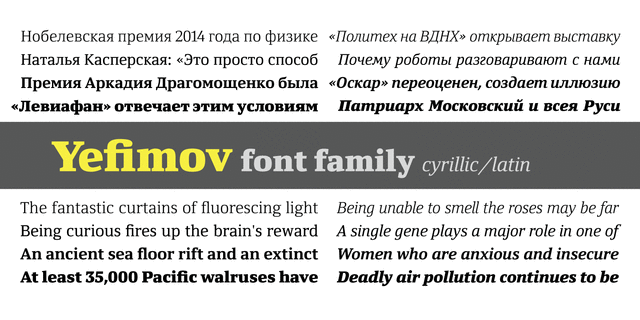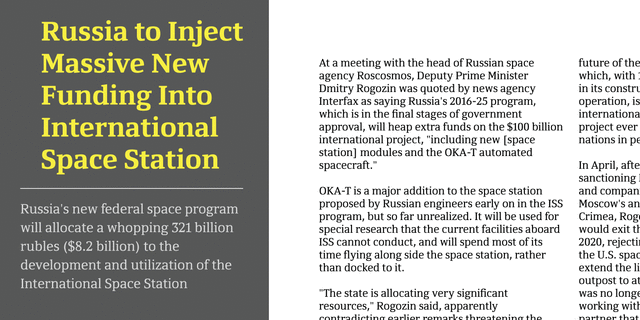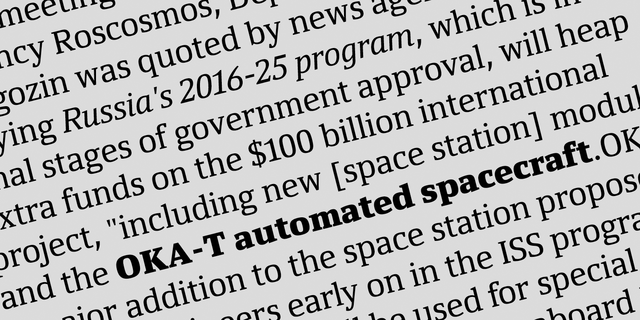
About Yefimov Serif is a contemporary serif face with low contrast, squarish shapes of round glyphs and emphasized businesslike nature. It is one of the last original faces by Vladimir Yefimov. Yefimov Serif will suit perfectly for business texts, periodicals and corporate identity. The typeface was completed by Maria Selezeneva and released by ParaType in 2014.
Associations for font family Yefimov SerifTypeface personality and character:
reliable, stable, business, serious, calm, solid, strict, flat, clear, technically, modern, accurate, logical, practical, static, educated, sharp, urban, crisp, cold, architectural, clever, authoritative, convincing, strong, self-assured, reputable, responsible, motivating, important, manly, severe, robust, powerful, notable, massive, heavy, bright, active, splashy